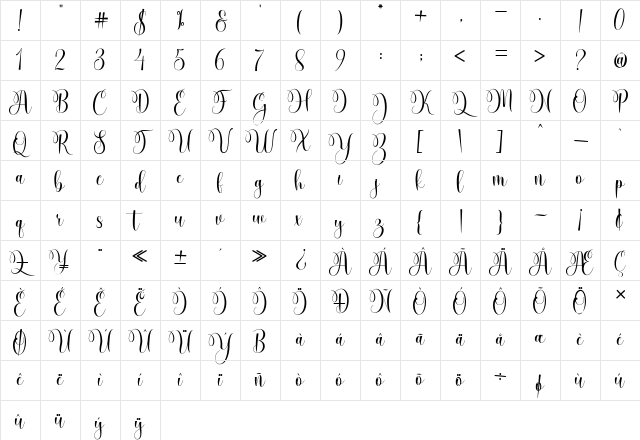
Baby Angel Regular Free Font
Baby Angel Regular
Foundry: SelotypeStudio
Designer: REKA SAFRIANI
Design Context for Baby Angel
Baby Angel is a composed and adaptable typeface that performs quietly and consistently across a wide range of design contexts.